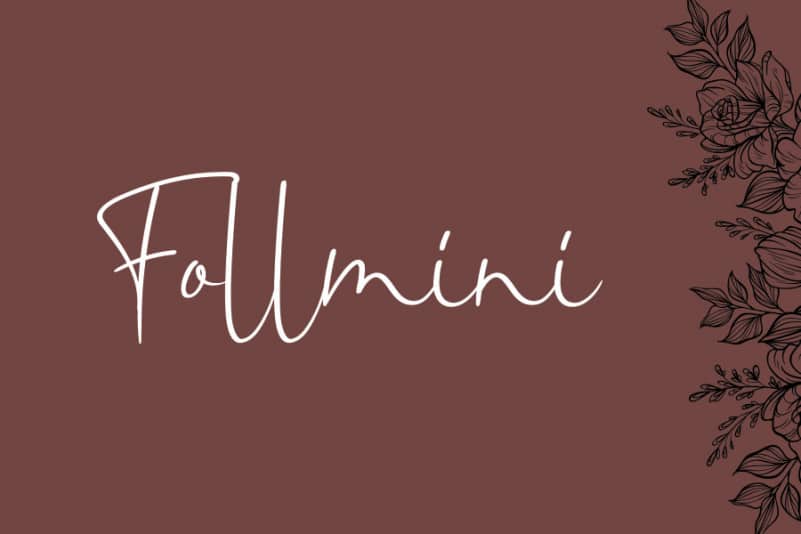
Eamolko Handwritten Font
Eamolko Handwritten Font feels equally charming and elegant. This stunning handwritten font is a stylish homage to classic calligraphy. It will elevate a wide range of design projects to the highest level, be it branding, headings, wedding designs, invitations, signatures, logos, labels, and much more!
The latest style letters are perfect for wall displays, wedding invitations, social media post logos, advertisements, product packaging, product designs, labels, photography, watermarks, invitations, stationery, and any project that requires taste handwriting.